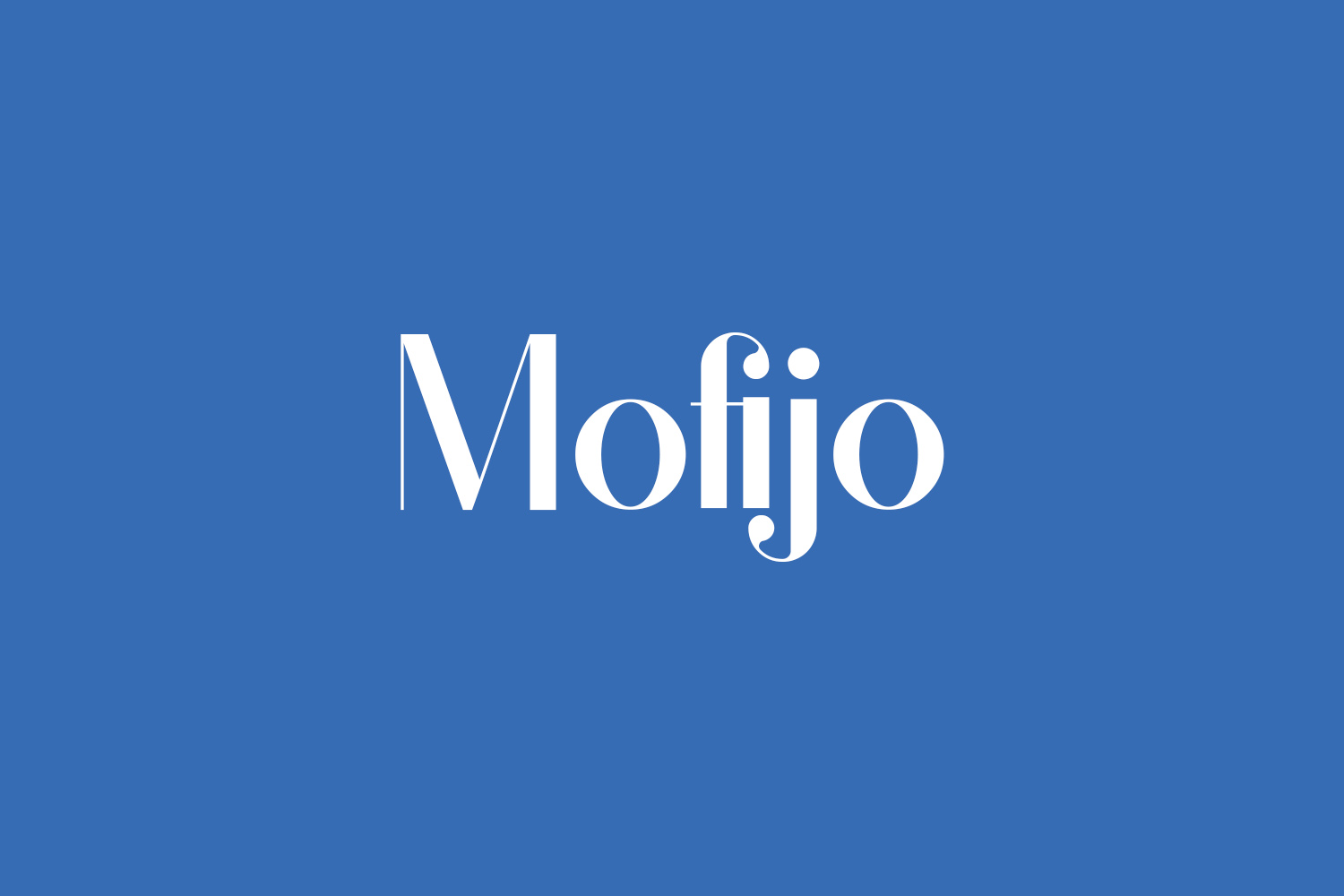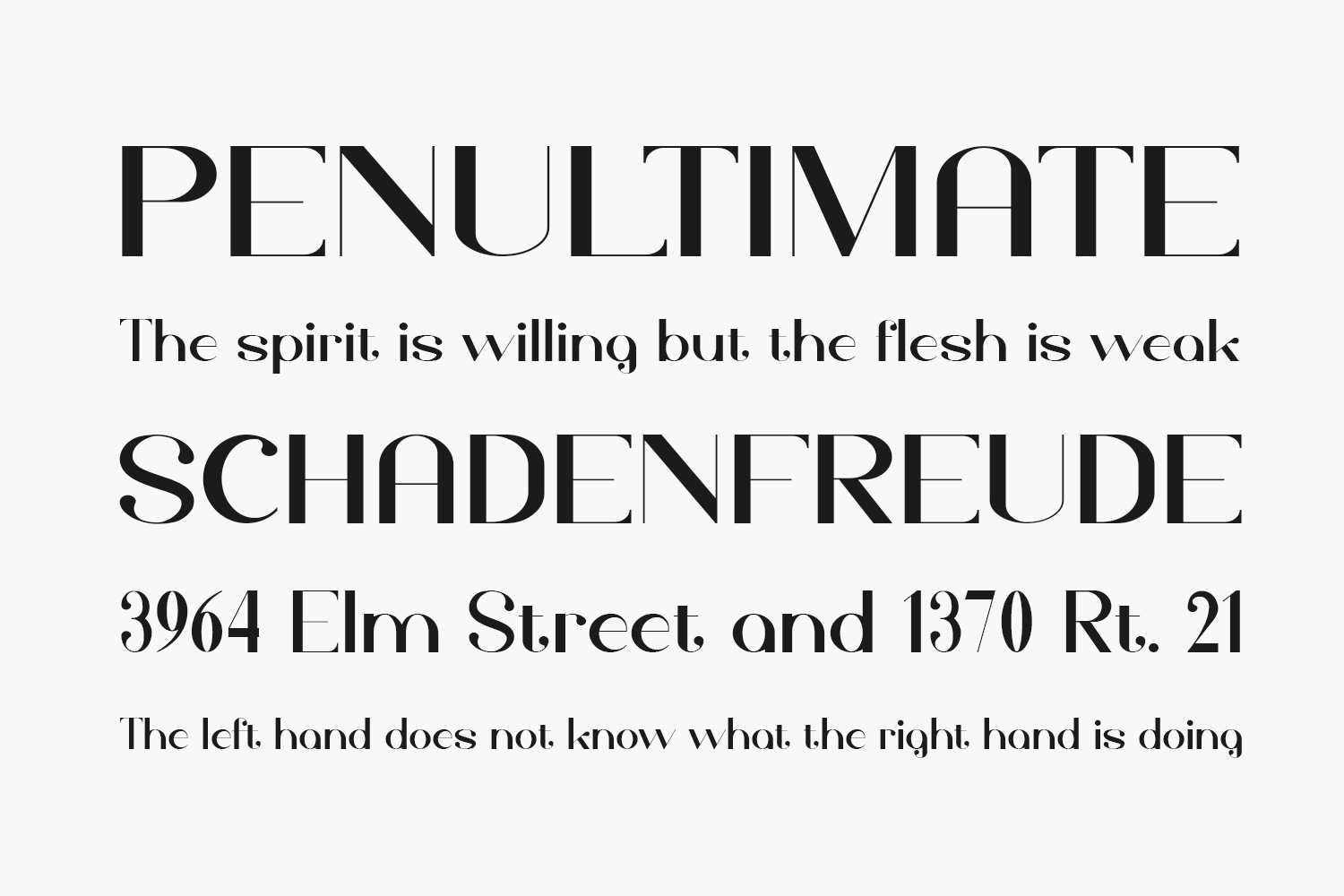
Mofijo Free Font is a distinct display font. Masterfully designed to become a true favorite, this font has the potential to bring each of your creative ideas to the highest level. Mofijo Free Font was designed by Amru ID and is free for personal use only. Please purchase the full version for commercial use.